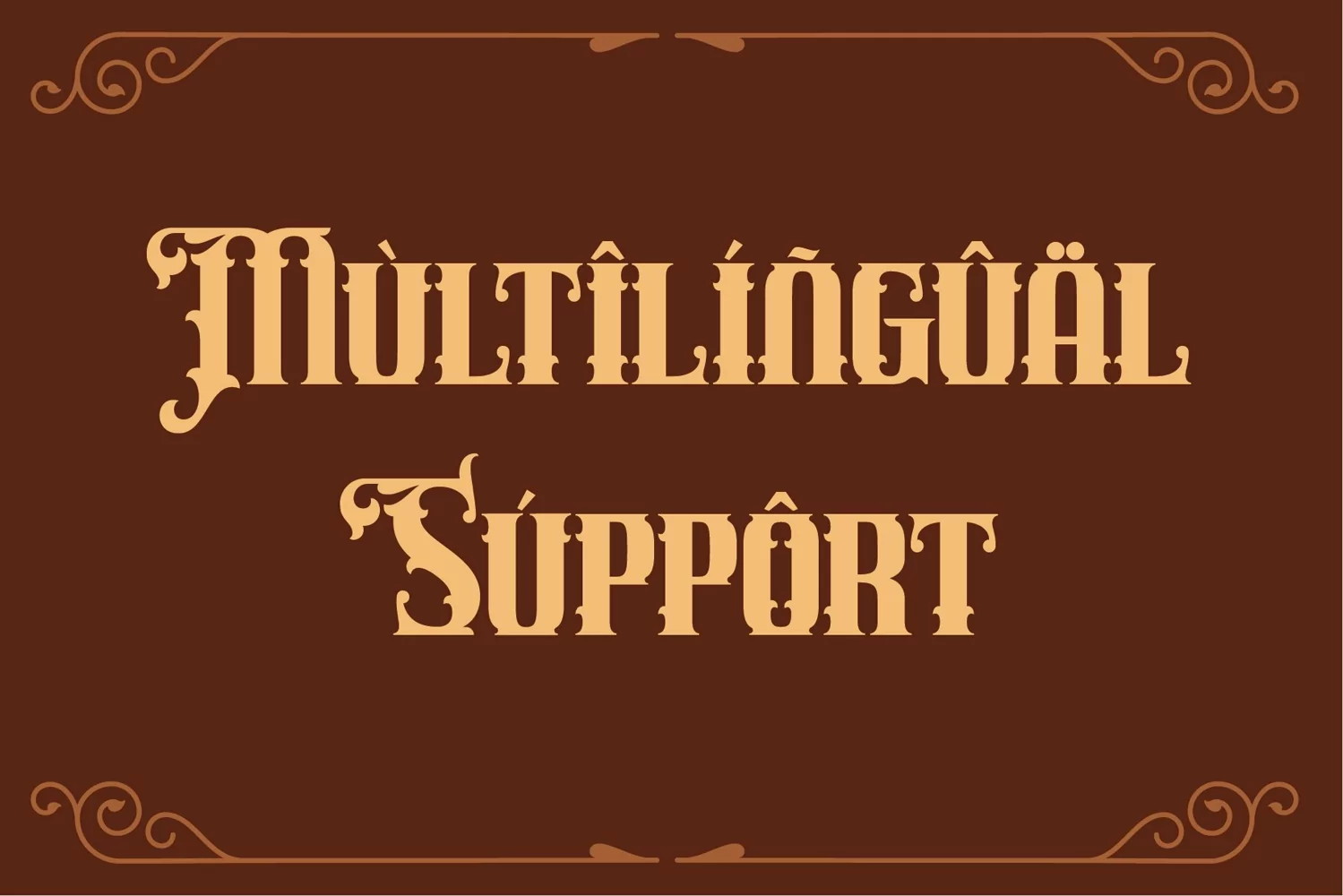
Eastern Wood - Vintage Font
If you looking for strong font for display or title this item is a great choice to make your design authentic.
Eastern Wood font has 197 character glyphs included the multilingual and alternate glyphs, the alternate glyphs will make your design more decorative.